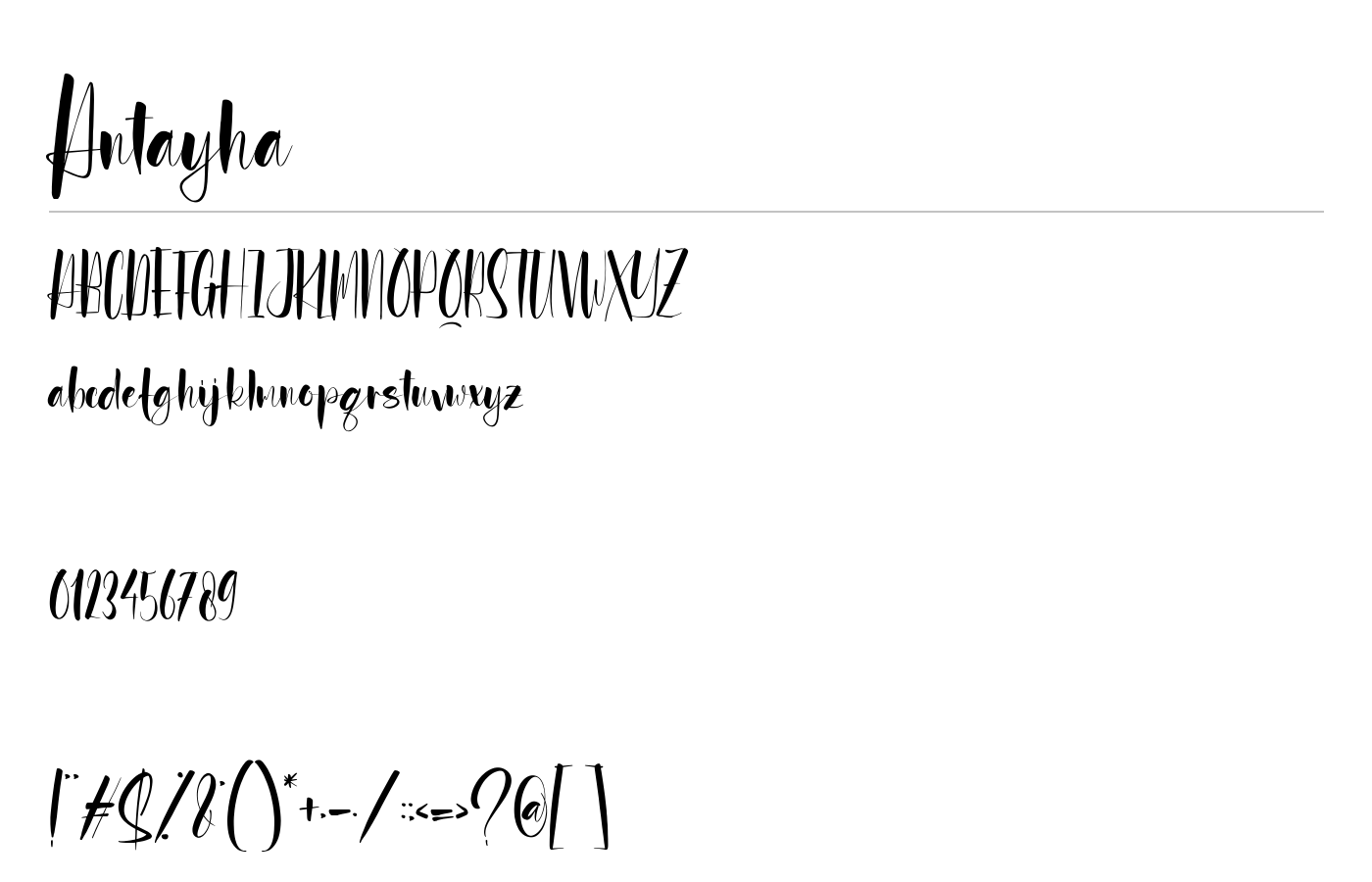
Antayha is a stylish handwritten script font featuring elegant, tall letterforms with a playful, artistic flair. Its smooth, varied strokes and unique letter shapes make it perfect for creative branding, invitations, and eye-catching headlines where a personal, friendly touch is desired. This font’s blend of sophistication and creativity works beautifully for fashion, lifestyle, and boutique projects that want to stand out with a handmade feel.
Antayha Font
About Antayha Font